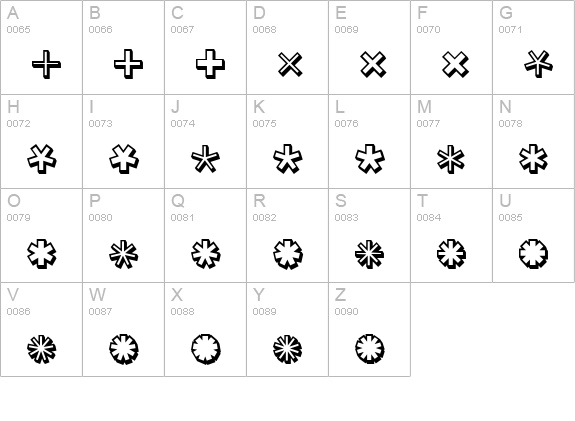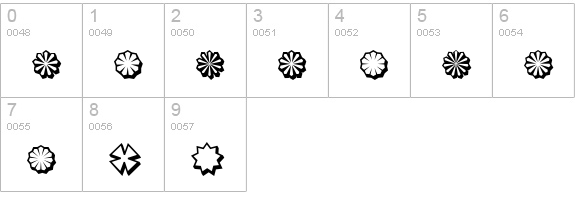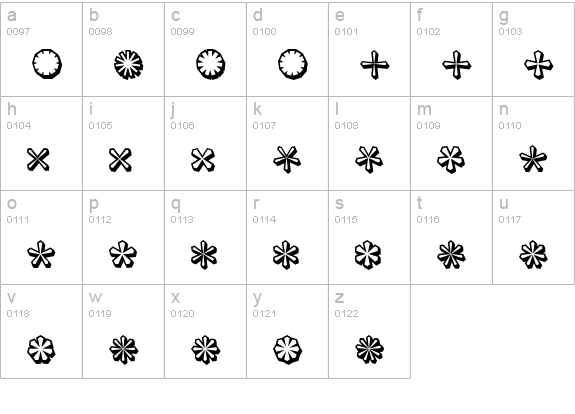
Asterisp Theta is a beautifully crafted and versatile font that exudes elegance and sophistication. With its sleek lines and modern aesthetic, this font is perfect for a wide range of design projects, from branding to editorial design. The carefully designed curves and sharp angles give Asterisp Theta a unique and distinctive look that is sure to catch the eye. What's even better is that Asterisp Theta is available for free download at FontsMarket.com. Yes, you read that right - this stunning font can be yours at no cost, making it an incredible value for designers and creatives alike. Don't miss out on the opportunity to add Asterisp Theta to your font collection and take your designs to the next level. Download it now and let your creativity soar with this exceptional typeface.